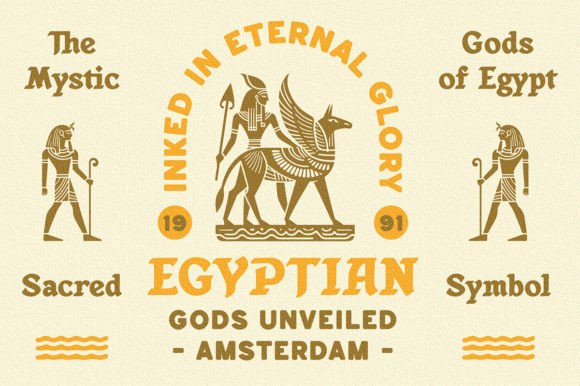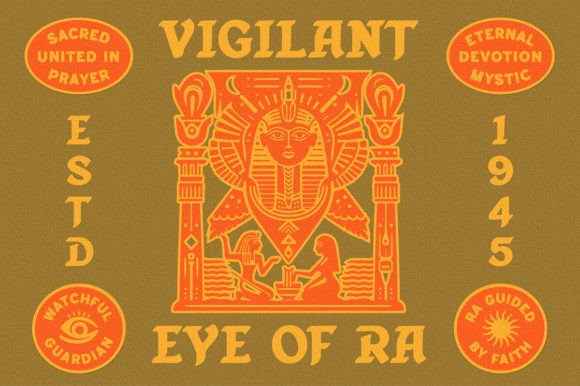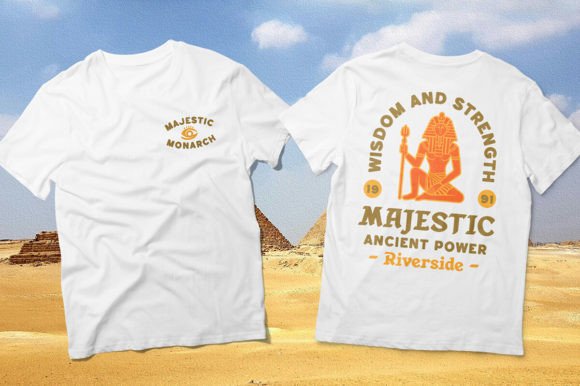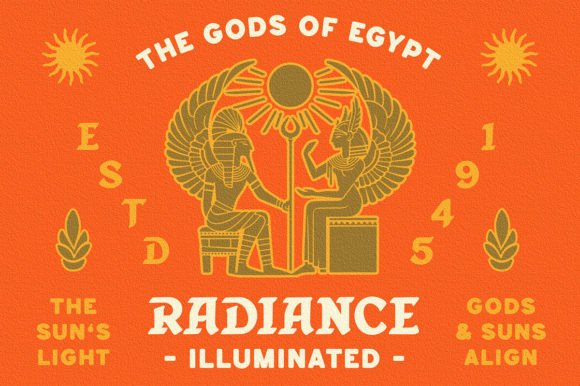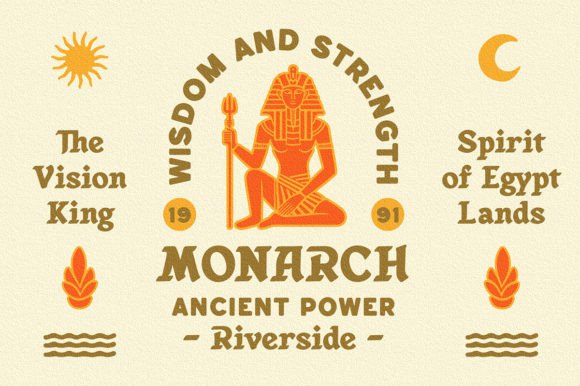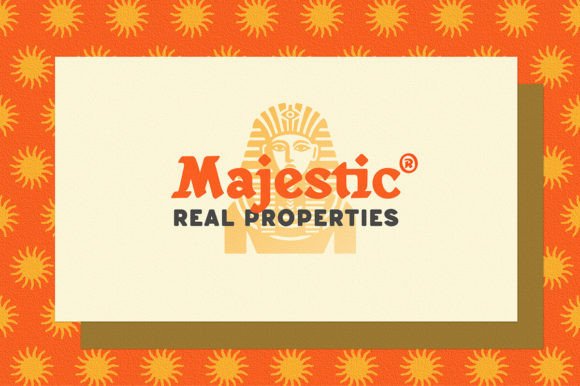
Unleash the Power of Ancient Egypt with Anubis Mythical Font
Are you looking for a font that can add a touch of ancient Egyptian flair to your designs? Look no further than the Anubis Mythical Font, a versatile and unique typeface that is perfect for creating striking badges, logos, and branding. With its three distinct styles and ligature features, this font is sure to unlock your creativity and take your designs to the next level.
What is Anubis Mythical Font?
Anubis Mythical is an ultimate Egyptian font that combines the elegance of serif and sans fonts to create a truly unique and captivating typeface. This font is inspired by the ancient Egyptian god Anubis, who was revered as the protector of the dead and the guardian of the afterlife. With its intricate details and hieroglyphic-inspired letterforms, Anubis Mythical Font is the perfect choice for designers who want to add a touch of mystique and ancient wisdom to their designs.
Three Unique Styles to Suit Your Design Needs
One of the standout features of Anubis Mythical Font is its three unique styles: regular, rough, and stamp. Each style offers a distinct look and feel, allowing you to choose the perfect variation to suit your design needs.
- Regular Style: The regular style is a classic serif font with elegant lines and intricate details. It’s perfect for creating sophisticated logos, badges, and branding that require a touch of ancient Egyptian flair.
- Rough Style: The rough style adds a distressed and worn look to the font, giving it a more rugged and vintage feel. This style is ideal for creating bold and eye-catching designs that require a bit of texture and grit.
- Stamp Style: The stamp style features a more condensed and compact letterform, with a raised seal-like effect. This style is perfect for creating striking badges, labels, and other designs that require a bold and impactful look.
Ligature Features for Added Creativity
Anubis Mythical Font also features ligature capabilities, allowing you to create unique and custom letter combinations that add an extra layer of creativity to your designs. With ligatures, you can create beautiful and intricate connections between letters, giving your designs a more organic and hand-crafted feel.
Anubis Mythical Font is perfect for designers and crafters who want to add a touch of ancient Egyptian flair to their projects. Whether you’re creating logos, badges, branding, or other designs, this font offers a versatile and unique solution that is sure to impress.
Unlock Your Creativity with Anubis Mythical Font
With Anubis Mythical Font, the possibilities are endless. Whether you’re a designer, crafter, or simply someone who appreciates the beauty of ancient Egyptian art, this font is sure to unlock your creativity and inspire you to create something truly unique and captivating.
Key Features of Anubis Mythical Font
- Ultimate Egyptian font with serif and sans styles
- Three unique styles: regular, rough, and stamp
- Ligature features for added creativity
- Perfect for logos, badges, branding, and other designs
- Inspired by ancient Egyptian art and hieroglyphics
Get Ready to Create Striking Designs with Anubis Mythical Font
In conclusion, Anubis Mythical Font is a versatile and captivating typeface that is perfect for adding a touch of ancient Egyptian flair to your designs. With its three unique styles, ligature features, and elegant letterforms, this font is sure to unlock your creativity and inspire you to create something truly unique and captivating. So don’t wait – get Anubis Mythical Font today and start creating striking designs that will leave a lasting impression!